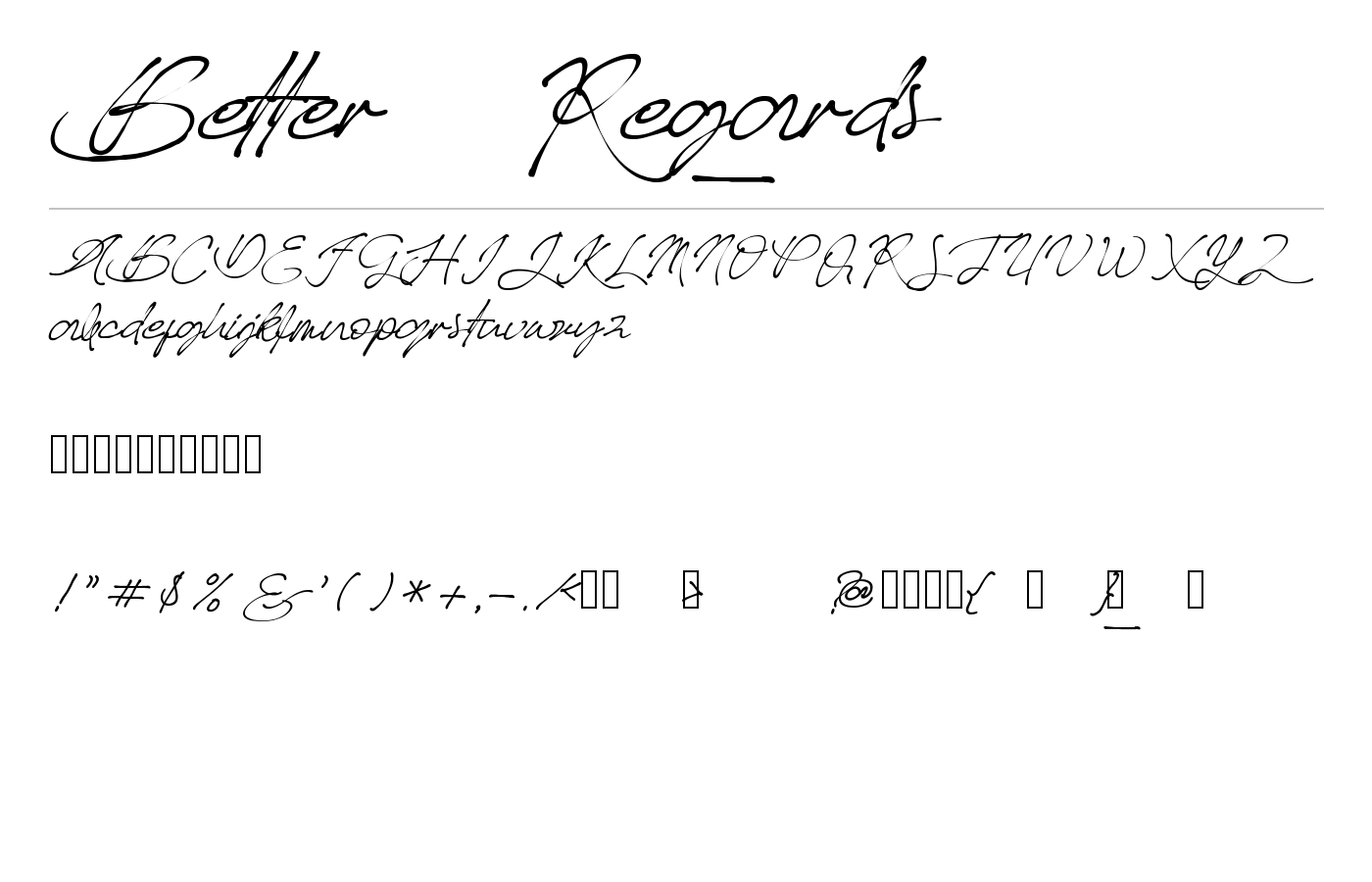
Better_Regards is an elegant and flowing script font that mimics expressive, handwritten calligraphy with fine, delicate strokes and smooth, connecting letters. Its light weight and graceful curves make it ideal for invitations, personal branding, or any design seeking a refined, sophisticated, and artistic feel. This font works best in large sizes where its distinctive, stylish character can truly stand out.
Better_Regards Font
About Better_Regards Font